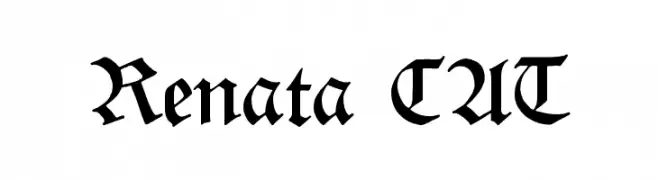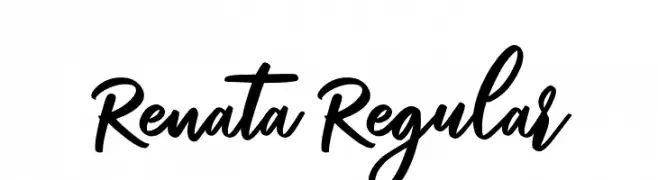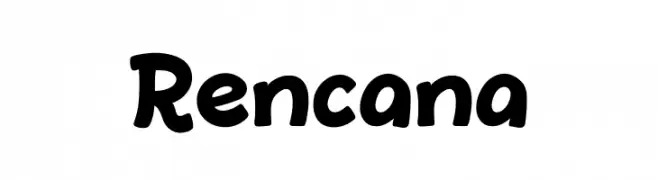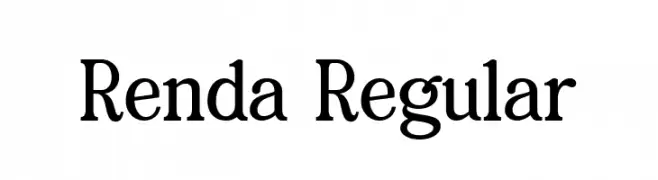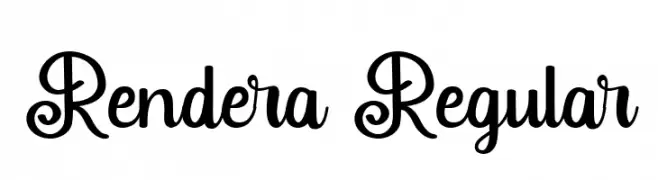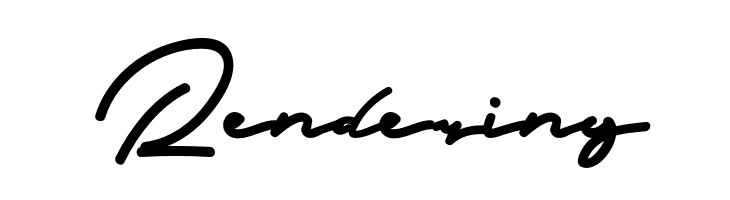
A classic blackletter font with ornate, bold characters and a medieval aesthetic.
A classic blackletter font with ornate, medieval-inspired design.
A dynamic and fluid handwritten font with smooth, flowing strokes.
A bold, flowing script font with interconnected letters and smooth curves.
A fluid and elegant cursive script font with a handwritten style.
A playful, bold font with rounded edges and a hand-drawn look.
A classic serif font with elegant and pronounced serifs, offering a timeless and sophisticated look.
A playful, decorative font with elegant curls and loops.